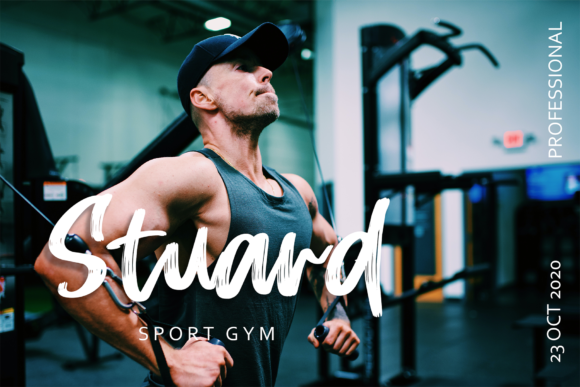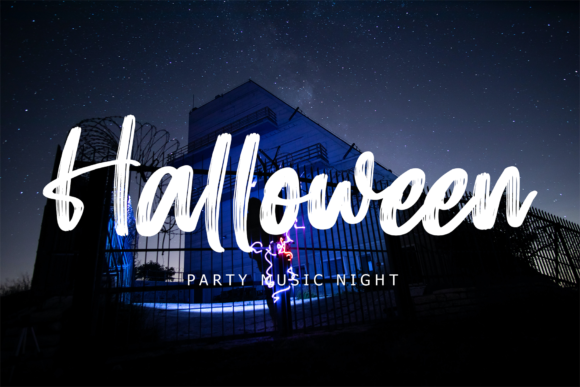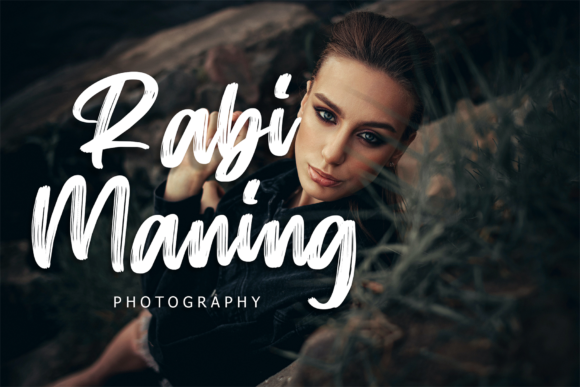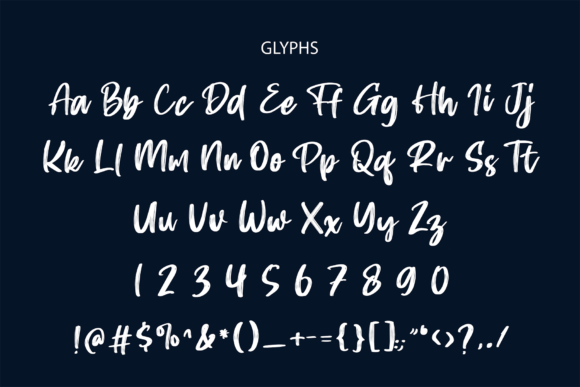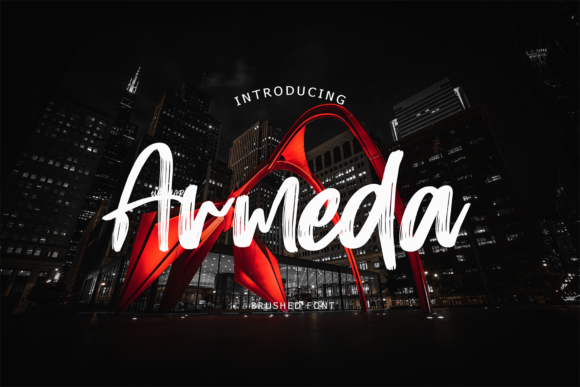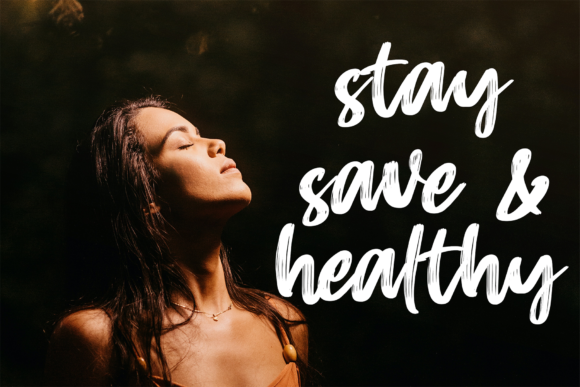
Introducing Armeda Font: The Perfect Handwritten Companion for Designers and Crafters
Are you on the hunt for a font that exudes elegance, versatility, and a touch of personal warmth? Look no further than Armeda Font, a stunning handwritten typeface created with the help of a brush pen. This beautiful font is sure to capture your heart with its relaxed, effortless style, making it perfect for a wide range of design projects.
The Charm of Armeda Font
Armeda Font boasts an incredibly versatile style that can be used to create a variety of gorgeous designs. Its unique, handwritten charm makes it an ideal choice for:
- Wedding invitations: Add a touch of romance and whimsy to your wedding stationery with Armeda Font.
- Stationary art: Create beautiful, one-of-a-kind journals, planners, and notebooks with this lovely font.
- Social media posts: Make your social media presence stand out with eye-catching graphics and quotes featuring Armeda Font.
- And much more: From branding and packaging to signage and decor, the possibilities are endless with Armeda Font!
What Makes Armeda Font So Special?
So, what sets Armeda Font apart from other fonts? Here are just a few reasons why designers and crafters are falling in love with this beautiful typeface:
- Handwritten with love: Armeda Font was created with a brush pen, giving it a personal, handwritten feel that’s perfect for designs that require a touch of warmth and personality.
- Relaxed and elegant: This font boasts a relaxed, effortless style that’s both elegant and sophisticated, making it perfect for a wide range of design projects.
- Versatile: Armeda Font can be used for both digital and print projects, making it a great addition to any designer’s toolkit.
Tips for Using Armeda Font in Your Designs
Ready to fall in love with Armeda Font? Here are a few tips for incorporating this beautiful typeface into your designs:
- Pair it with bold fonts: Combine Armeda Font with bold, modern fonts for a striking contrast that adds visual interest to your designs.
- Experiment with colors: Try pairing Armeda Font with a range of colors, from soft pastels to rich jewel tones, to add depth and personality to your designs.
- Add decorative elements: Consider adding decorative elements, such as illustrations or graphics, to enhance the beauty of Armeda Font and create a truly unique design.
Get Creative with Armeda Font
Whether you’re a designer, crafter, or simply someone who loves beautiful typography, Armeda Font is sure to inspire your creativity. With its versatile style, elegant charm, and handwritten warmth, this font is perfect for anyone looking to add a touch of personality to their designs.